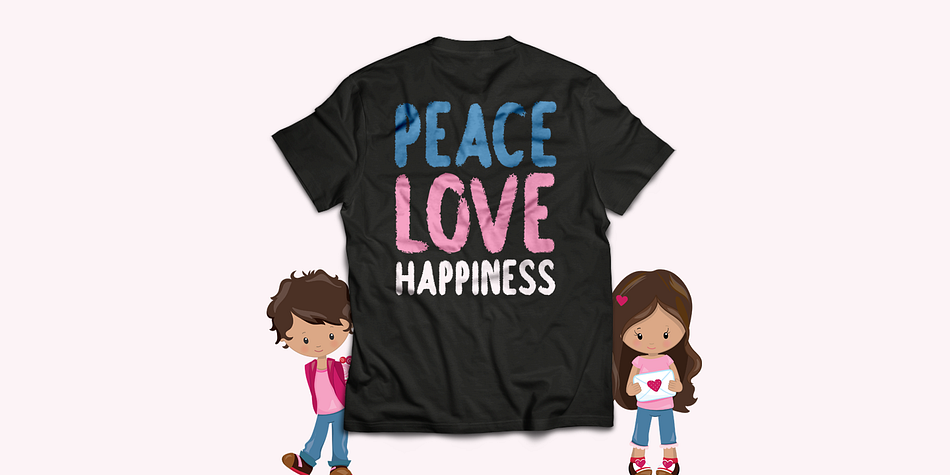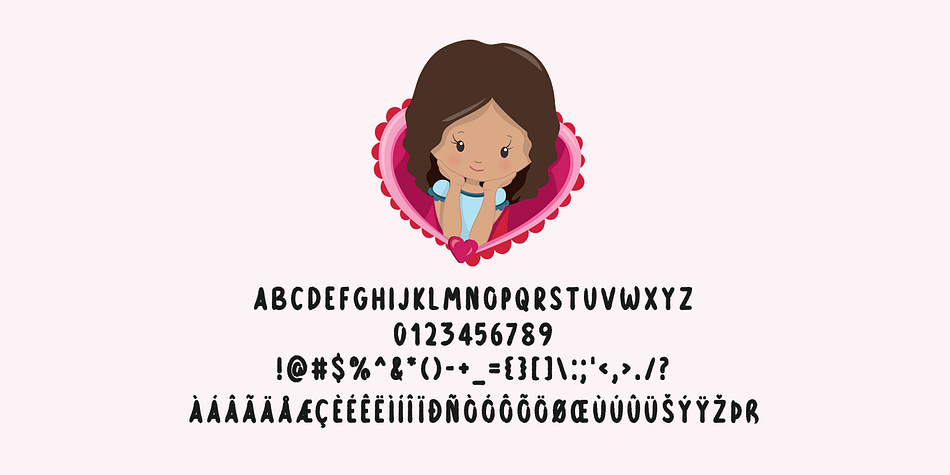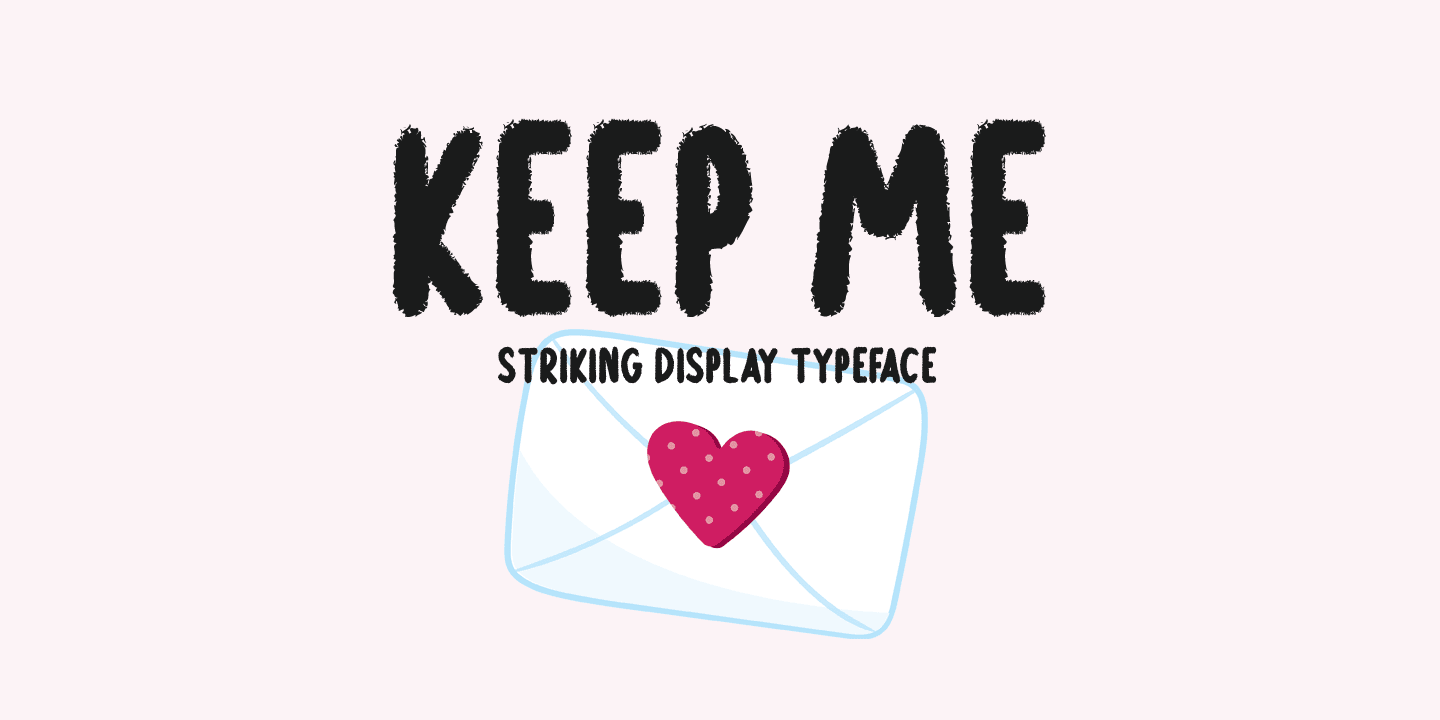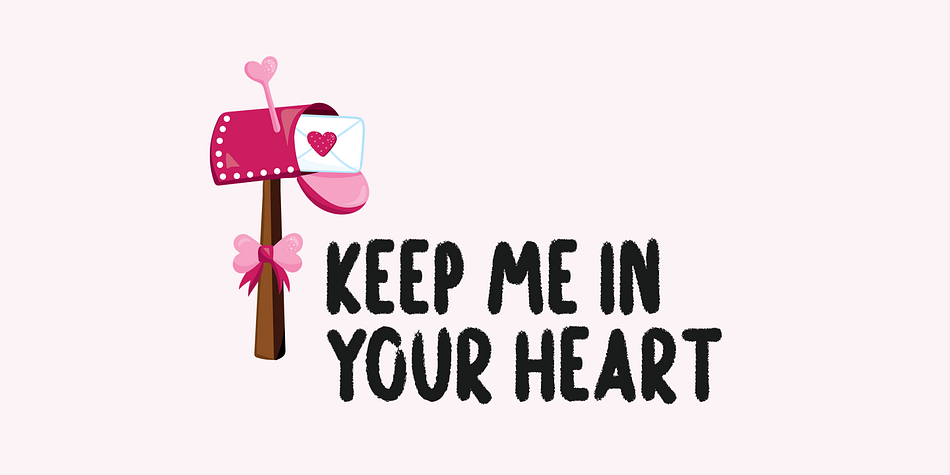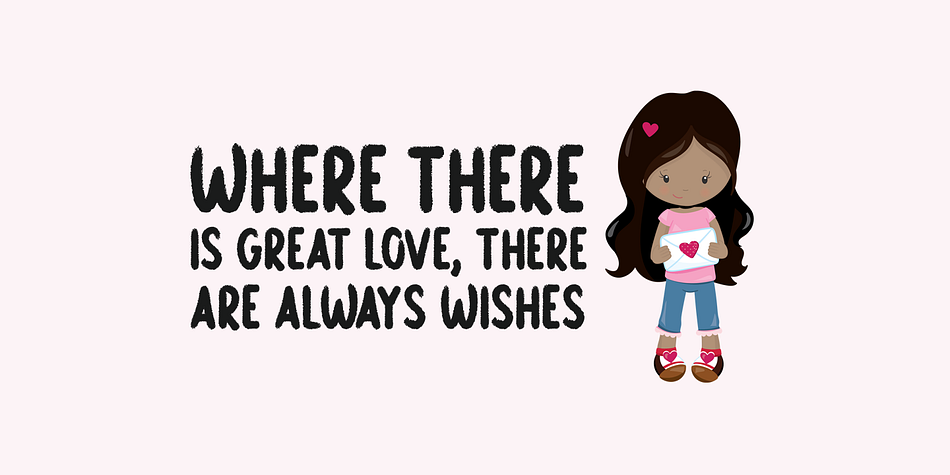
Keep Me
Designed by Md. Shohail Bhuiyan, Keep Me is a brush display and hand display font published by Seemly Fonts.
Keep Me is a fresh and modern display font. Keep Me is perfectly suited for stationery, logos, t-shirts, paper, print designs, website headers and much more!
Foundry Seemly Fonts
Styles Brush Display, Hand Display
Designer Md. Shohail Bhuiyan